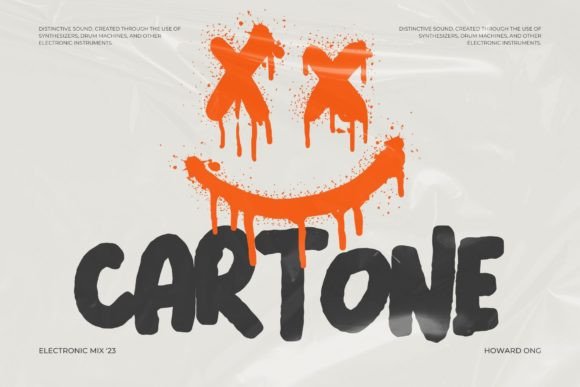
Introducing Cartone Font: A Typographic Masterpiece for Your Creative Endeavors
In the realm of visual communication, fonts hold the power to captivate, engage, and leave a lasting impression. And amongst the myriad of font families, Cartone Font stands as a beacon of boldness, impact, and undeniable presence.
Crafted with meticulous attention to detail by the esteemed foundry Maghrib, Cartone Handdrawn is a sans-serif masterpiece that commands attention with its thick, powerful strokes and striking letterforms. Its very presence exudes strength, confidence, and a profound sense of modernity.
More than just a collection of characters, Cartone Font is an expression of individuality, creativity, and a desire to make a statement. It's a font that refuses to blend into the background, demanding attention and making your words resonate with unwavering impact.
Whether you're a seasoned designer seeking to elevate your projects or a budding entrepreneur looking to establish a brand identity that exudes confidence, Cartone Font is your perfect companion. Its versatility extends across a wide range of applications, from captivating headlines and posters to eye-catching branding and social media graphics.
With Cartone Font at your disposal, you'll discover a newfound ability to captivate your audience, forge deeper connections, and leave an indelible mark on their minds. It's a font that empowers you to communicate with clarity, impact, and a touch of boldness that's sure to resonate.
So, step into the world of Cartone Font and unleash your creativity like never before. Let its bold strokes and striking letterforms elevate your designs, captivate your audience, and make a statement that reverberates with confidence and style.